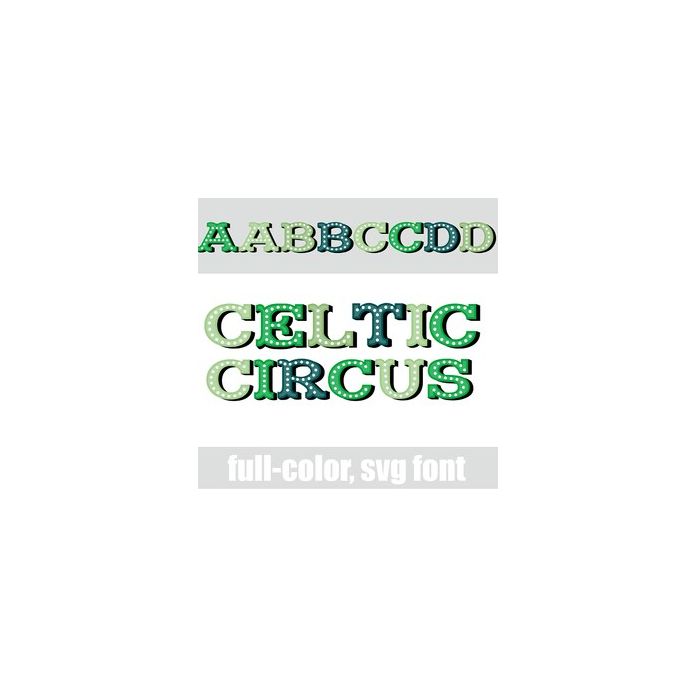
This full-color font features a circus like, marquee font in a green color palette. There is an alt case w/ additional colors you can access through your system or Silhouette's glyph map.